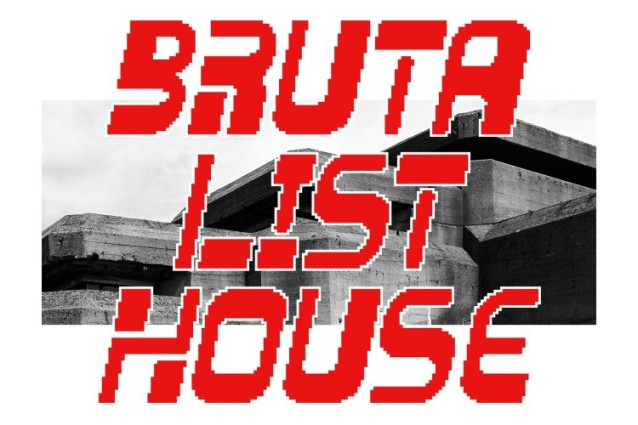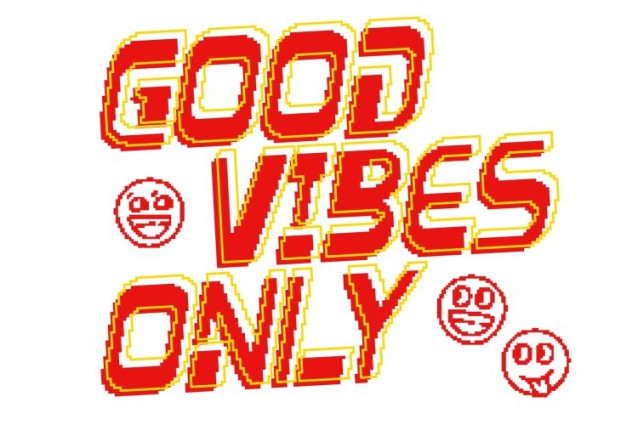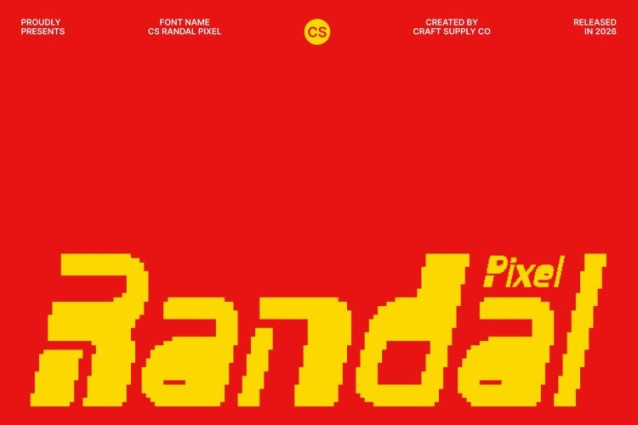
CS Randal Pixel Font
CS Randal Pixel Font This is a stylish and experimental sans serif font built on the foundations of brutalist design. Its sharp edges, assertive forms, and unapologetically rigid construction create a strong visual presence that feels raw and industrial. Each letterform rejects softness and ornamentation, embracing a bold, architectural approach that commands attention.
Sharp Geometry for Industrial Expression
The font delivers an unmistakably industrial character through its precise, angular geometry. Mechanical forms evoke urban structures, concrete surfaces, and modernist design principles. This disciplined construction enhances clarity while reinforcing its brutalist identity, making it ideal for layouts that demand intensity, structure, and visual authority.
Pixel Structure with Futuristic, Retro-Tech Energy
The pixel-inspired construction adds a digital edge that makes this font instantly eye-catching. Its blocky precision recalls early computer graphics, retro technology, and low-resolution digital systems, while still feeling modern and experimental. This fusion of pixel logic and brutalist structure creates a futuristic look with a nostalgic technological soul.
Designed for Digital, Posters, and Graphic Design
Perfect for digital design, editorial layouts, posters, and bold graphic projects, this font excels in both contemporary and retro-tech visuals. Whether used for screens, experimental branding, or old-technology inspired aesthetics, it delivers a powerful, modern voice with brutal clarity, digital sharpness, and industrial confidence.